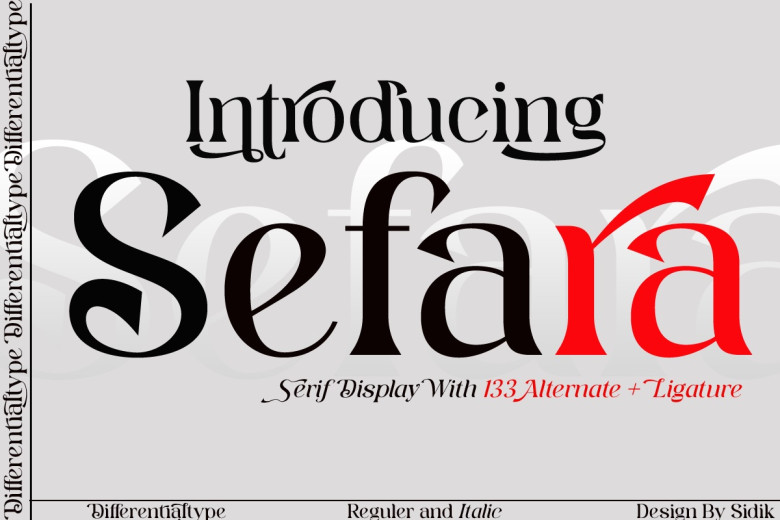
Sefara Font
Sefara offers an elegant, modern aesthetic. As an authentic serif font, Sefara makes for a sophisticated font perfect for logos, branding projects, invitations and stationery projects. Encoded with PUA for ease of accessing all its glyphs and Swashes!
Sefara Modern Serif Font